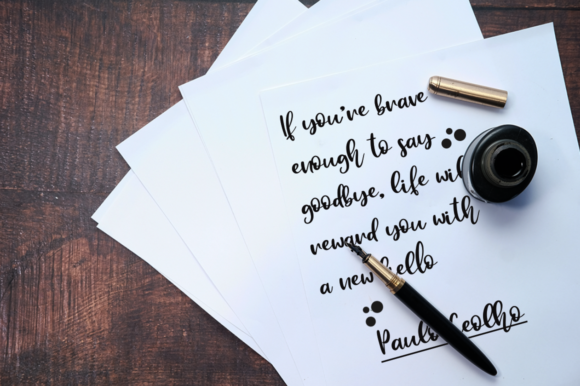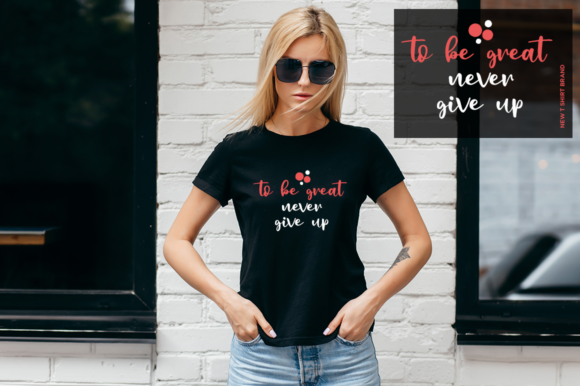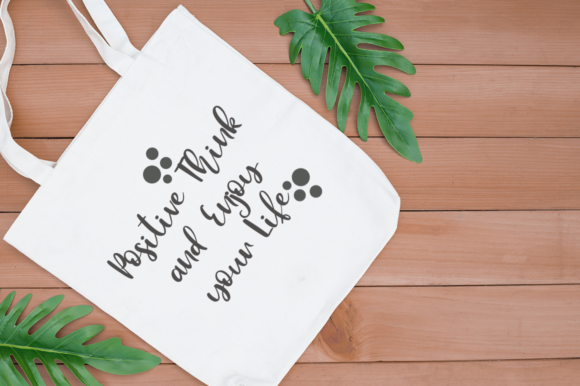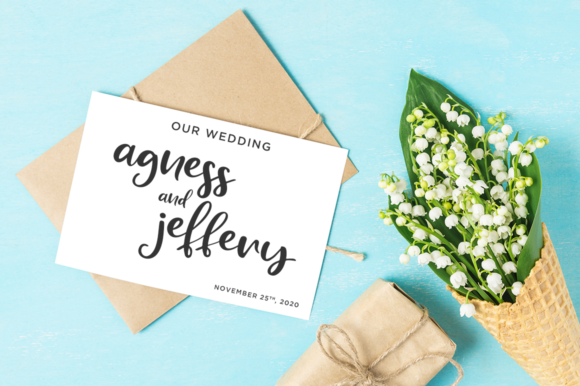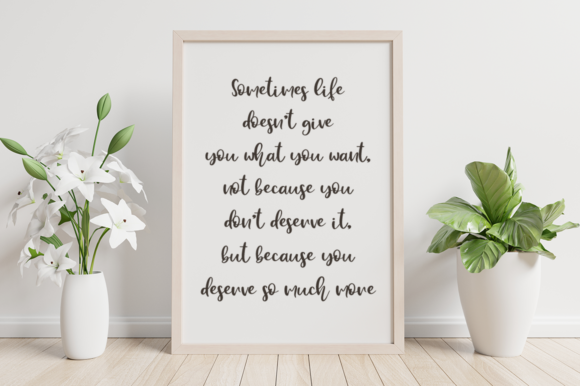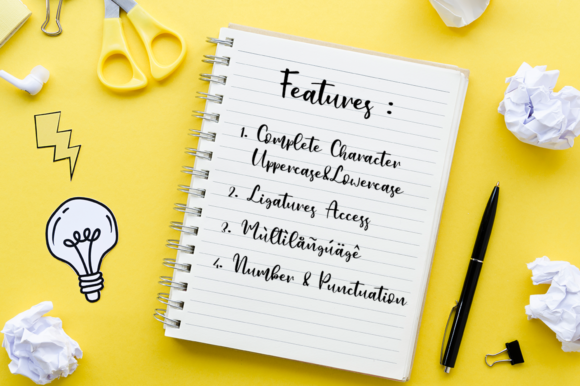
Discover the Creative Potential of Different Font: A Fun and Trendy Handwritten Font
Are you a designer, crafter, or DIY enthusiast looking for a font that can elevate your creative projects? Look no further than Different Font, a fun and trendy handwritten font that’s perfect for Instagram, calligraphy scripts, and more. In this article, we’ll explore the features and benefits of Different Font, and show you how to use it to turn your creative ideas into stunning works of art.
What is Different Font?
Different Font is a unique and stylish handwritten font that’s designed to add a personal touch to your creative projects. Its fun and trendy vibe makes it perfect for a wide range of applications, from social media graphics and Instagram posts to DIY projects and craft designs.
Key Features of Different Font
- Handwritten style: Different Font has a distinctive handwritten style that’s both playful and elegant.
- Trendy and modern: This font is perfect for designers and crafters who want to create modern and stylish designs.
- Versatile: Different Font can be used for a wide range of creative projects, from Instagram graphics to calligraphy scripts.
Using Different Font for Instagram Graphics
If you’re looking for a font to elevate your Instagram graphics, Different Font is an excellent choice. Its stylish and modern design makes it perfect for creating eye-catching posts and stories that will engage your followers. Here are some tips for using Different Font for Instagram graphics:
- Keep it simple: Use Different Font to create simple, yet stylish text-based graphics that showcase your brand or personality.
- Add a personal touch: Use this font to add a personal touch to your Instagram posts and stories, making them more relatable and engaging.
- Experiment with colors: Different Font looks great in a variety of colors, so don’t be afraid to experiment and find the perfect hue for your design.
Using Different Font for Calligraphy Scripts
Different Font is also perfect for calligraphy scripts and DIY projects. Its handwritten style and trendy vibe make it ideal for creating beautiful and unique designs. Here are some tips for using Different Font for calligraphy scripts:
- Practice makes perfect: Take some time to practice using Different Font for calligraphy scripts, and you’ll soon get the hang of it.
- Experiment with lettering styles: Different Font looks great in a variety of lettering styles, so don’t be afraid to experiment and find the one that works best for your design.
- Add embellishments: Use Different Font as a base and add embellishments, such as flourishes or swashes, to create a truly unique design.
Tips for Using Different Font
Here are some additional tips for using Different Font:
- Pair it with other fonts: Different Font looks great when paired with other fonts, so don’t be afraid to experiment and find the perfect combination.
- Use it for titles and headings: This font is perfect for titles and headings, adding a touch of personality and style to your designs.
- Make it your own: Don’t be afraid to experiment and make Different Font your own by adding your own personal touch and style.
Different Font is a fun and trendy handwritten font that’s perfect for designers, crafters, and DIY enthusiasts. Its stylish and modern design makes it ideal for a wide range of creative projects, from Instagram graphics to calligraphy scripts. With its ease of use and versatility, Different Font is a great addition to any design toolkit. So why not give it a try and see how it can elevate your creative projects?